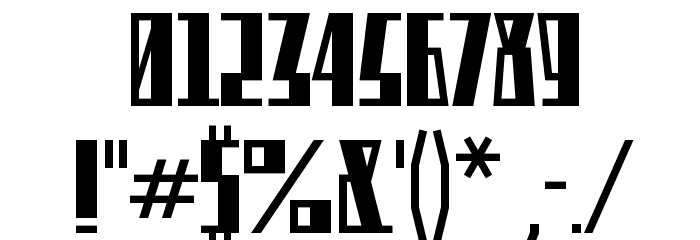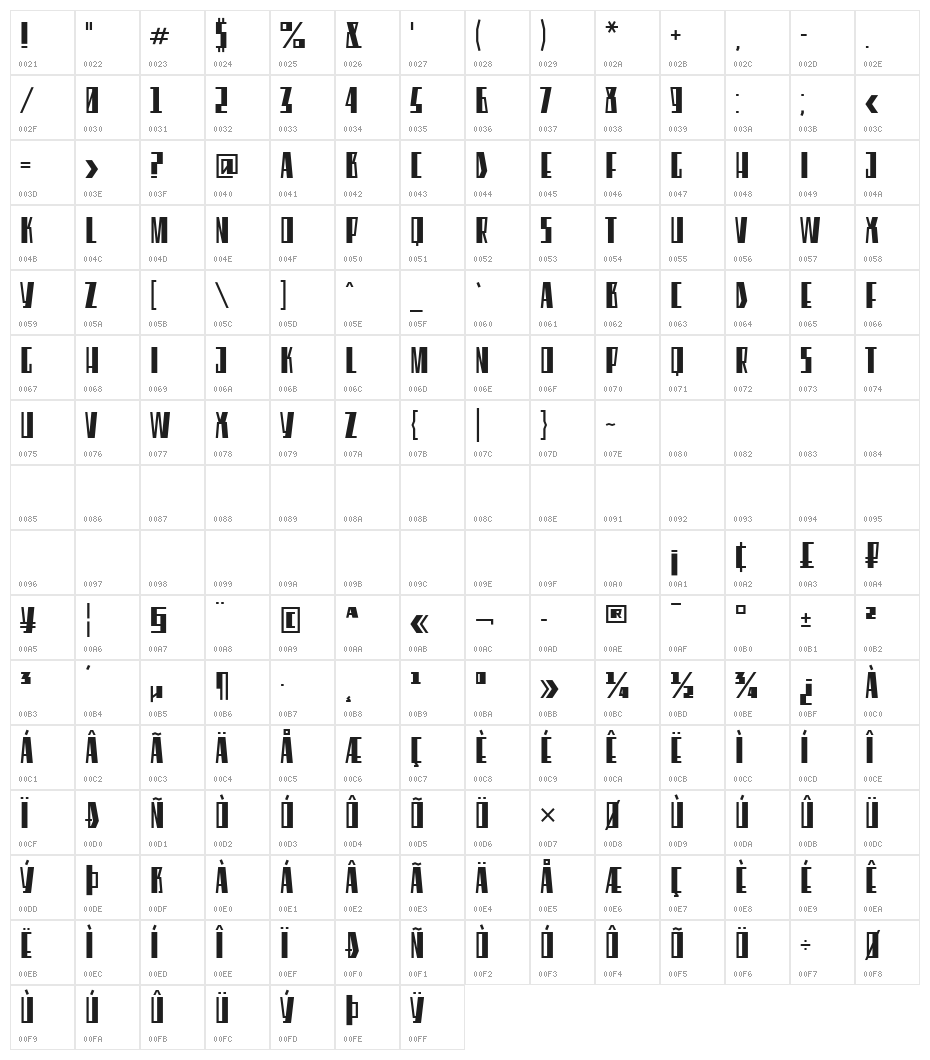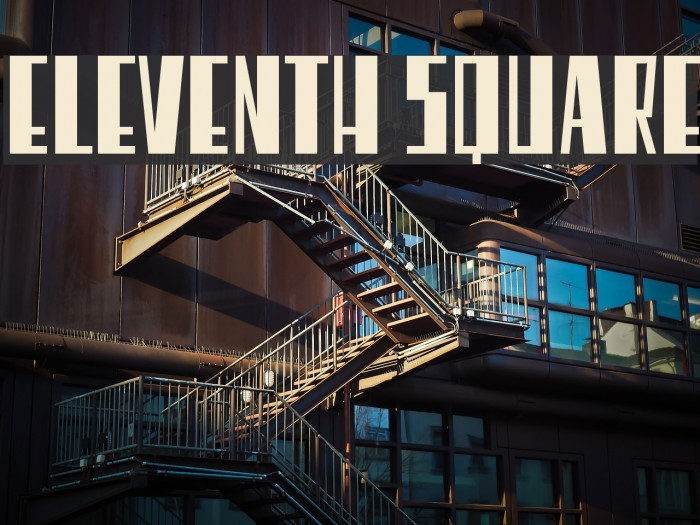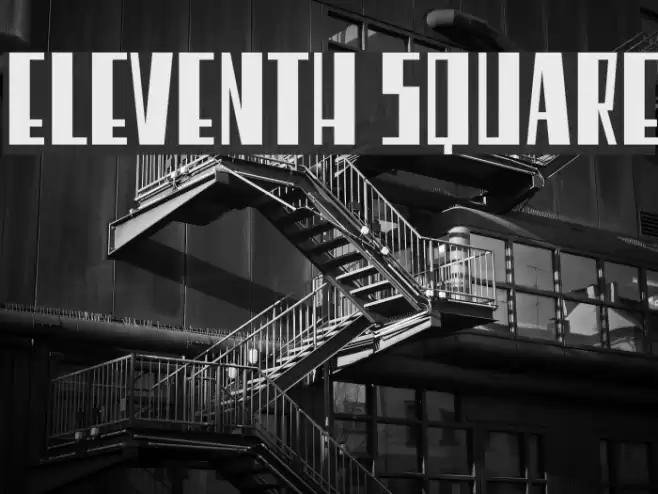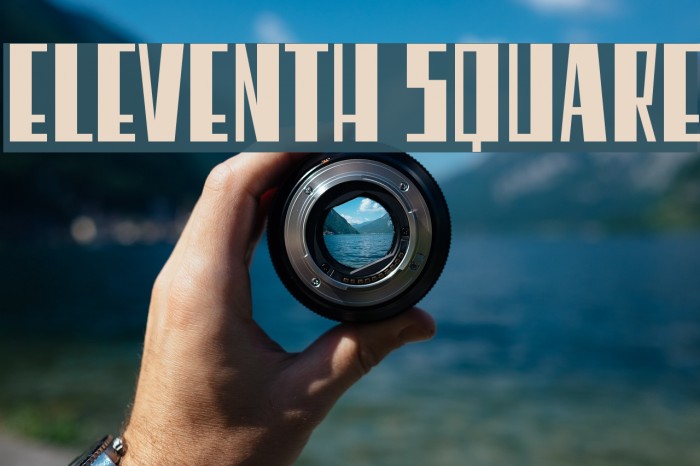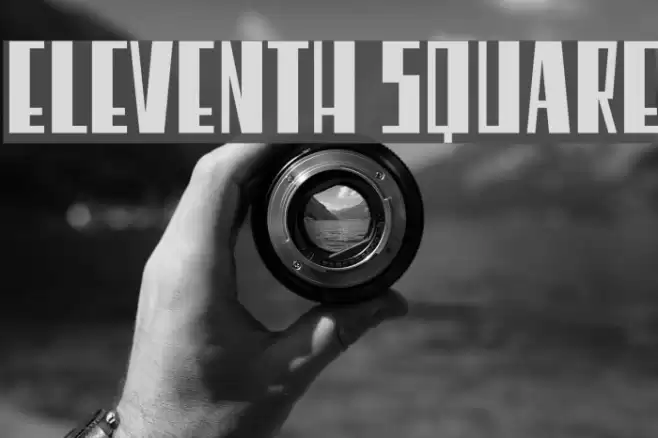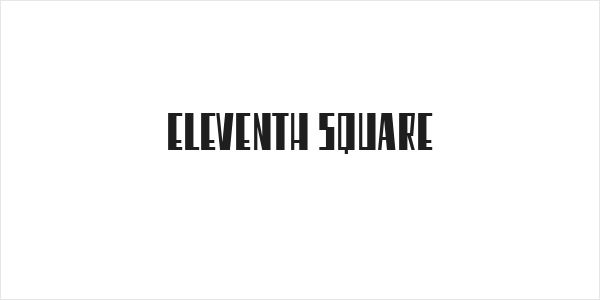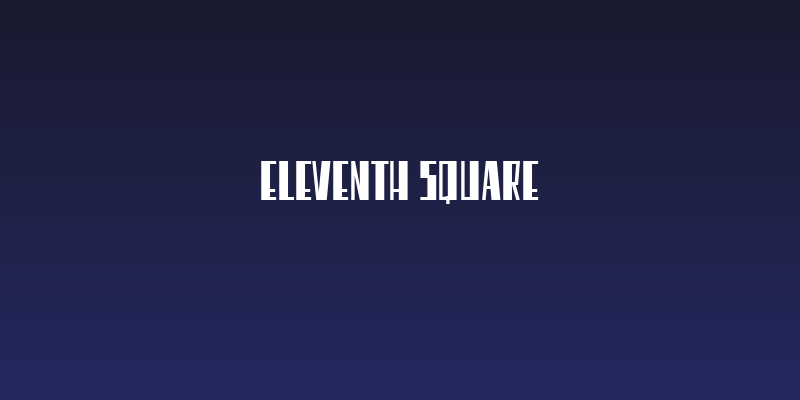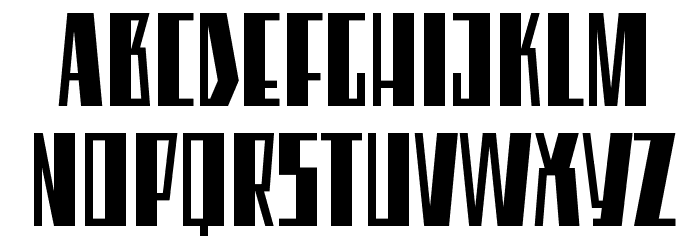
Eleventh Square Font
Eleventh Square Description
This font features a bold, geometric design with sharp angles and a strong presence. The characters are tall and narrow, creating a striking and modern appearance. The uppercase letters have a uniform height, while the lowercase letters maintain a consistent style with slightly reduced size. The numbers are equally bold and angular, ensuring readability and impact. Special characters are designed to match the overall aesthetic, with clean lines and a cohesive look. The font's unique style makes it suitable for attention-grabbing headlines and display purposes.
| Proposed Projects | Ideal for posters, logos, branding, and any project requiring a strong visual impact. |